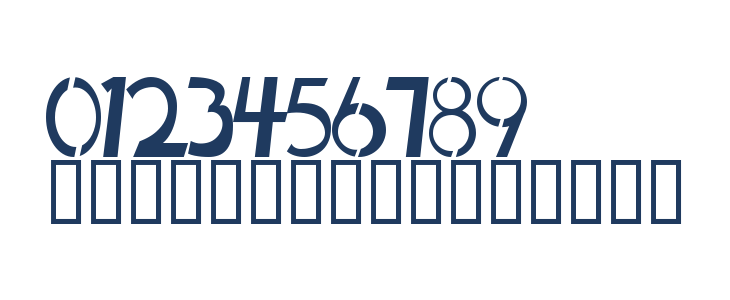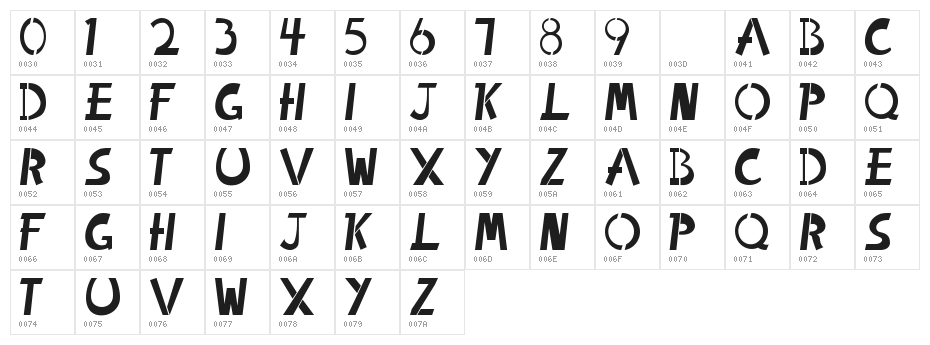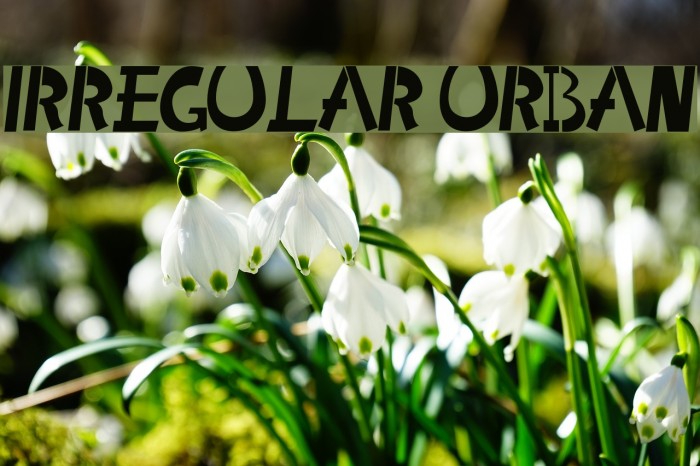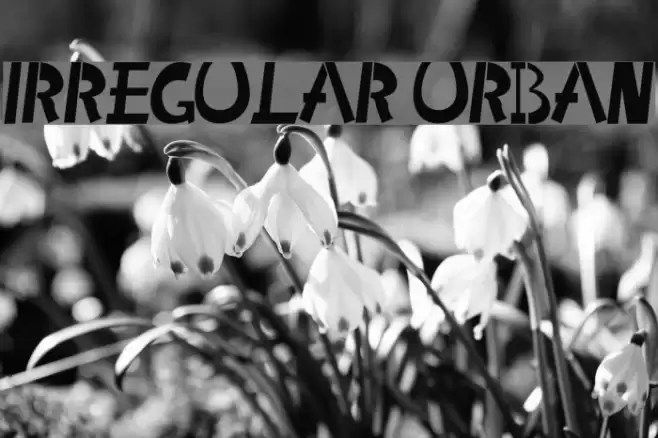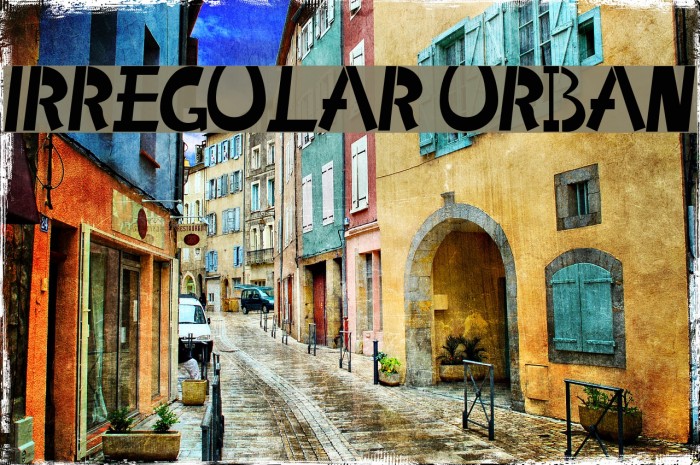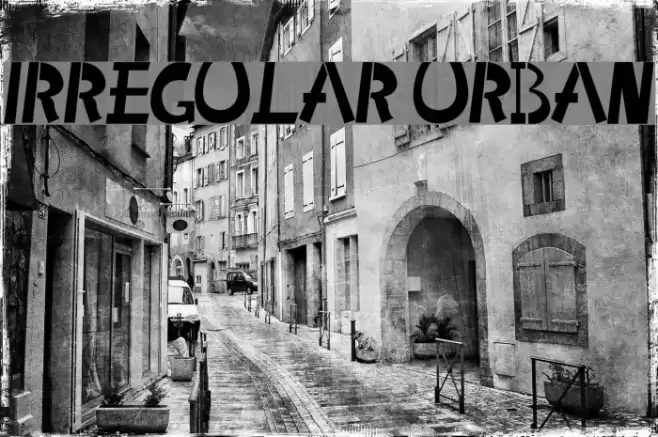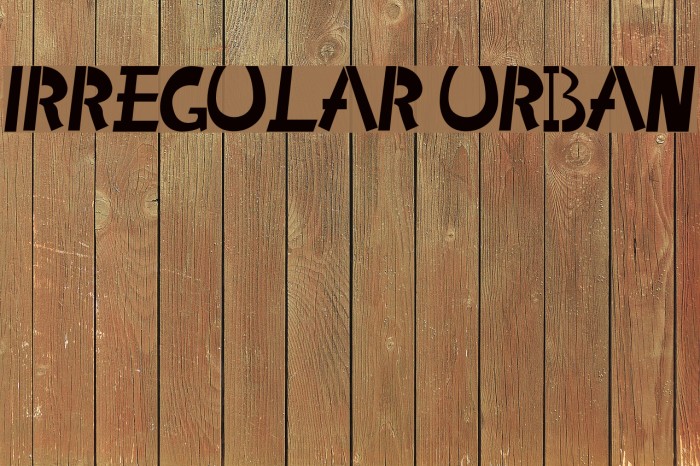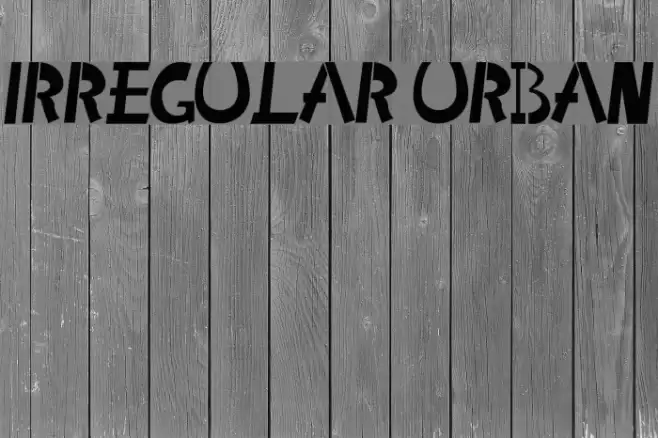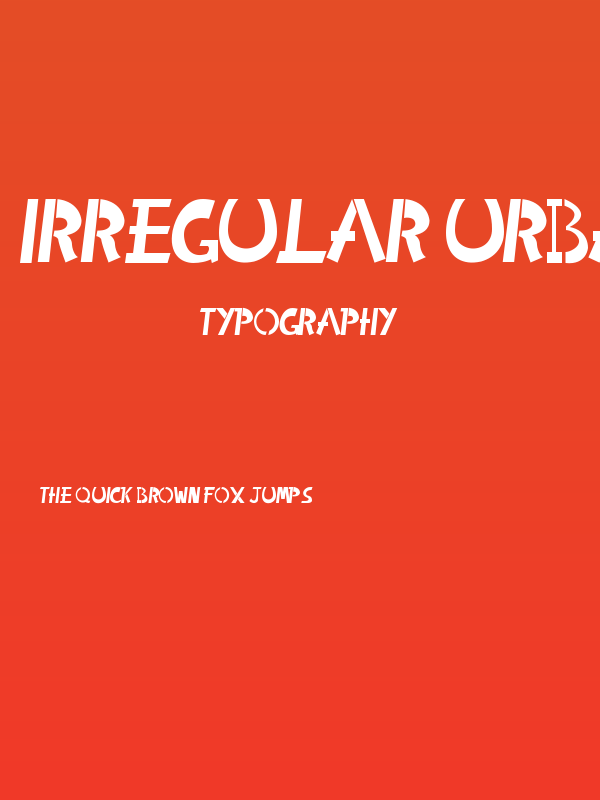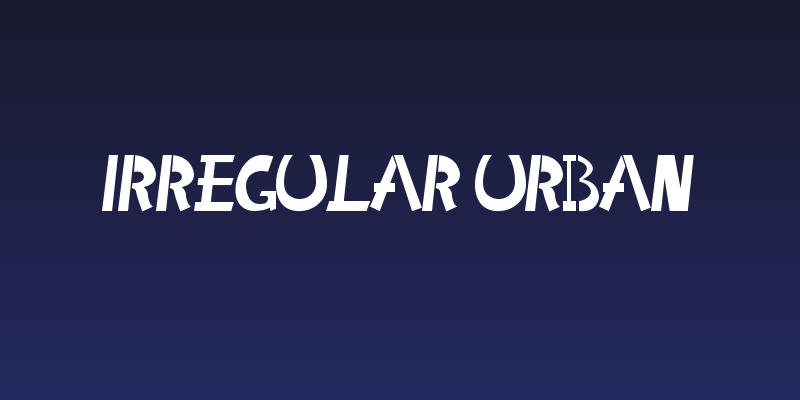
Irregular Urban Font
Irregular Urban Description
This font features a bold, dynamic style with a distinctly urban and modern flair. The characters are designed with sharp angles and a unique cut-out effect that gives them a futuristic and edgy appearance. The uppercase and lowercase letters maintain a consistent style, with a slight slant that adds to the sense of movement and energy. The numbers and special characters follow the same design principles, ensuring a cohesive look across all elements. This font's bold presence makes it ideal for eye-catching designs that require a strong visual impact.
| Proposed Projects | Ideal for urban-themed posters, modern branding, edgy apparel designs, and dynamic digital media. |